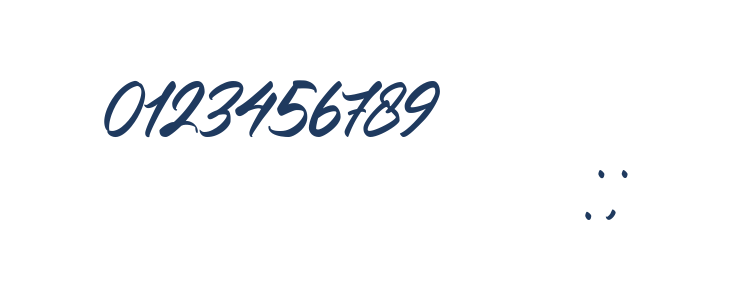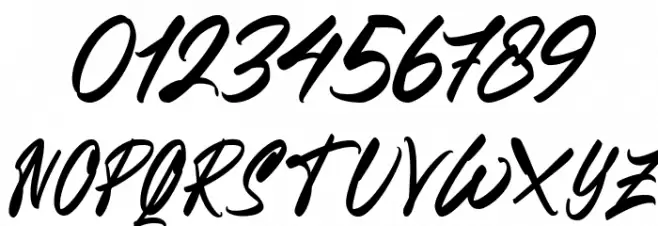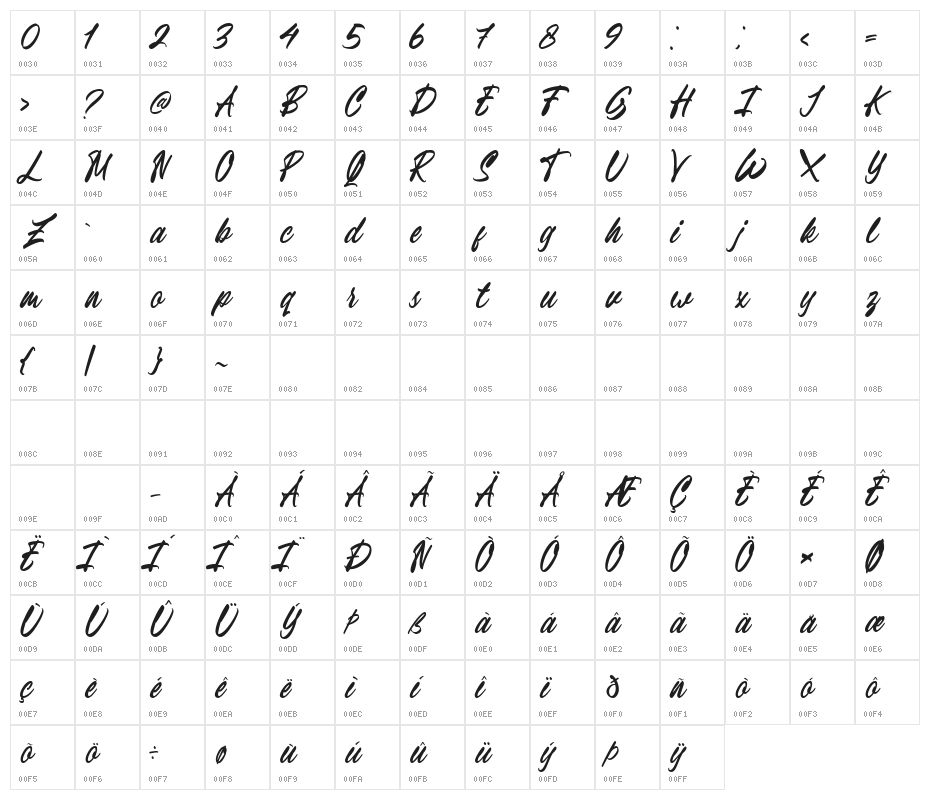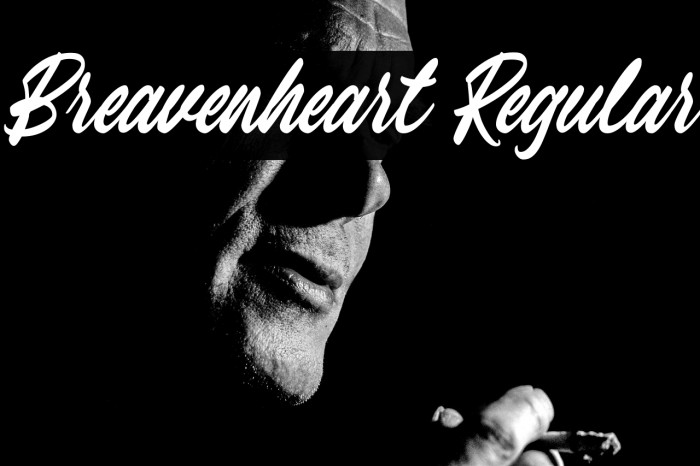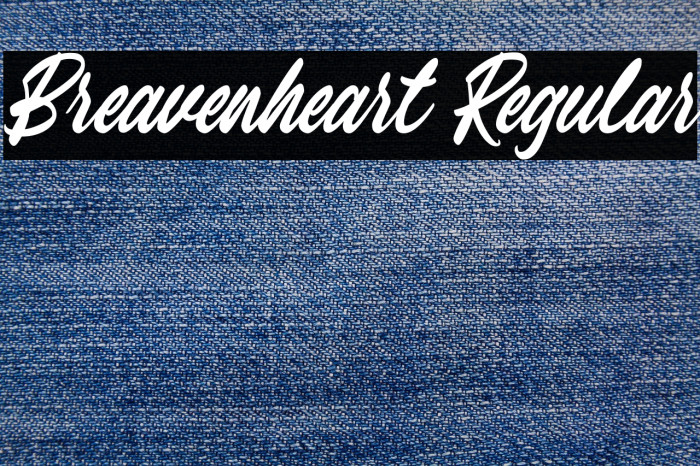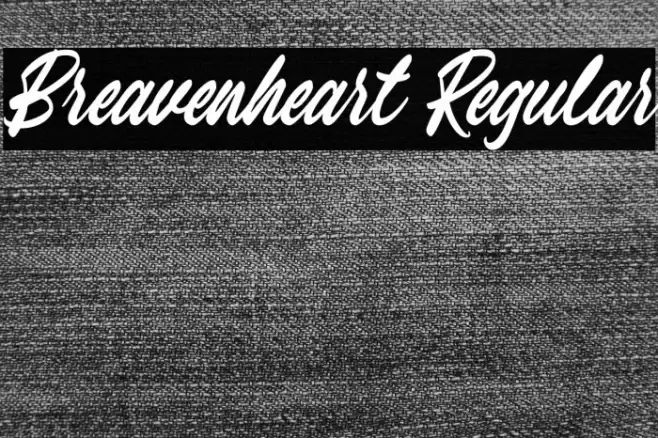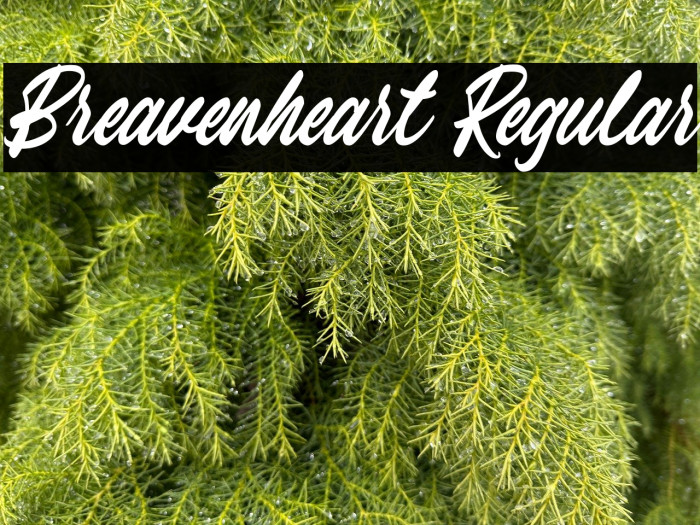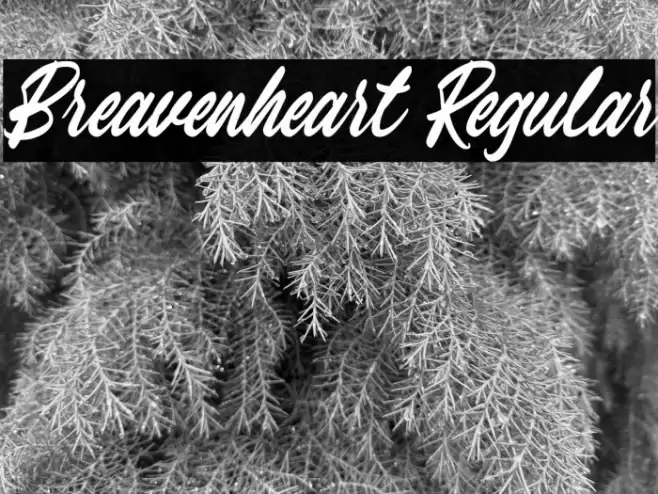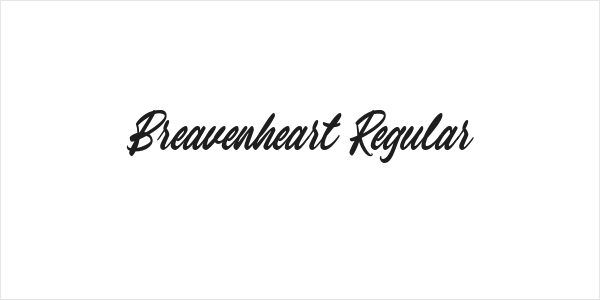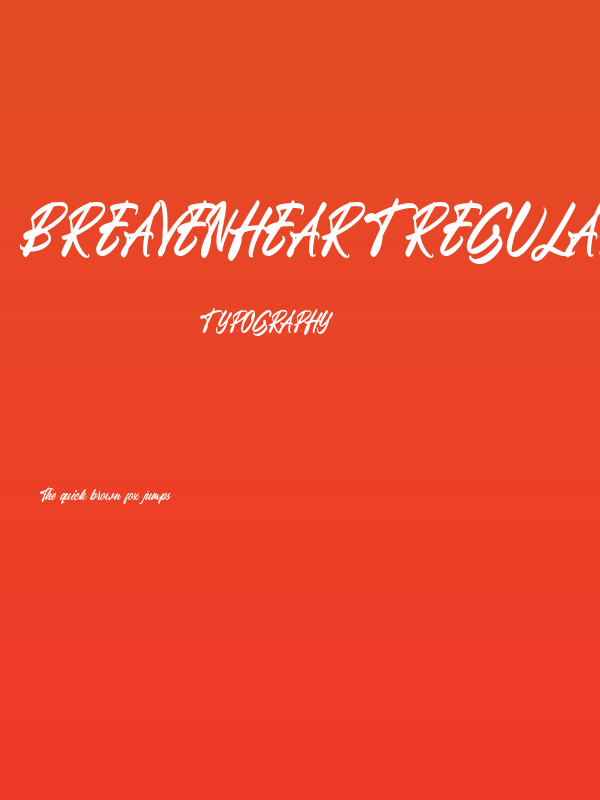
Breavenheart Regular Font
Breavenheart Regular Description
This font features a dynamic and expressive script style, characterized by its fluid, cursive strokes and a sense of movement. The letters are interconnected, creating a seamless flow that mimics natural handwriting. The uppercase letters are bold and prominent, while the lowercase letters maintain a consistent rhythm and elegance. Numbers and special characters are designed to match the overall aesthetic, ensuring a cohesive look across all text. The font exudes a sense of creativity and personal touch, making it ideal for projects that require a handwritten feel.
Proposed ProjectsIdeal for invitations, greeting cards, branding, and any project that benefits from a personal, handwritten touch.